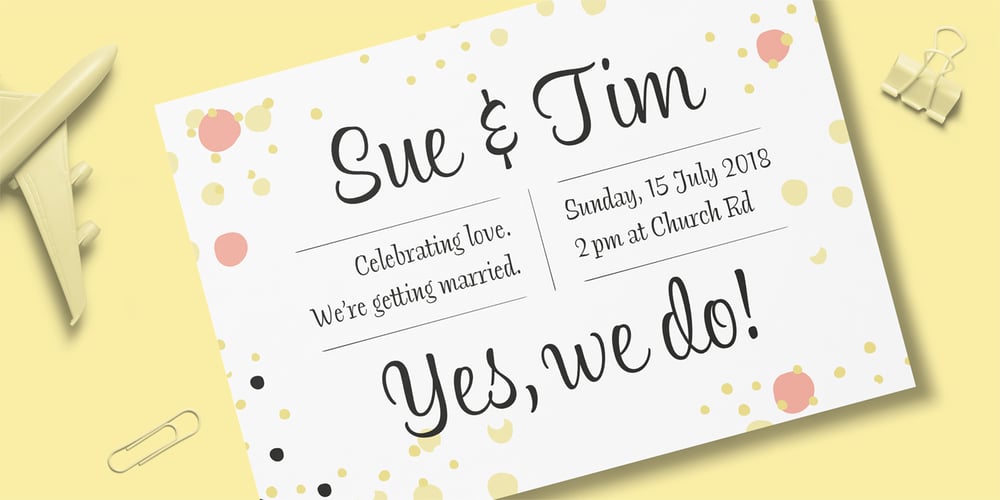
Alfie
Alfie font
Alfie Font Family was designed by Jim Ford and published by Monotype. Alfie contains 5 styles and family package options. Alfie™ is lively, friendly, inviting and easy on the eyes. What more could you want in a script? How about four flavors of the same design? Alfie Script is a delightful connecting script with a touch of comfortable elegance. Use it for everything from social announcements to headlines and packaging. Alfie Casual is a little more laid-back with letters standing on their own. It works great in short blocks of text copy, subheads and navigational links. Alfie Informal has spirited serifs and its own demeanor, while Alfie Small Caps does a fine job of supporting its other siblings. There’s an immediacy to words and messages set in these lighthearted confections. Jim Ford was practicing drawing with a new brush pen when the inspiration for Alfie came to him. He had filled several pages in a notebook with letters and, at one point, realized that there might be a typeface among them. As it turned out, there were four. The process, however, wasn’t choosing one design and modifying it. The makings of all the designs were on the pages. It was just a matter of culling out the right collection of characters to build the foundations for the four flavors of Alfie. Because they share the same family roots, each design in the Alfie family can be paired and intermixed. Ford admits that there’s a hint of Emil Klumpp’s 1950s Murray Hill typeface (https://www.myfonts.com/fonts/bitstream/murray-hill/) in the Alfie family. Just enough to give the design a 50s vibe. (Some fashions never go out of style.)